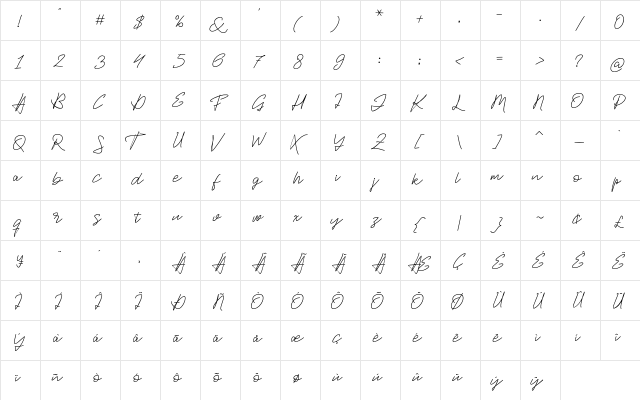
Jackson Script Regular
Design Context for Jackson Script Typeface
Jackson Script brings a calligraphic fluidity to the page — its connecting strokes and expressive curves give it an unmistakably human quality.
Font Pairing: Combine Jackson Script with a simple geometric sans for maximum contrast — the tension between flowing curves and clean structure is a classic typographic pairing.
Pro Tip: Use Jackson Script for short runs of text — names, titles, or taglines. Extended body copy in script faces tires the eye quickly.